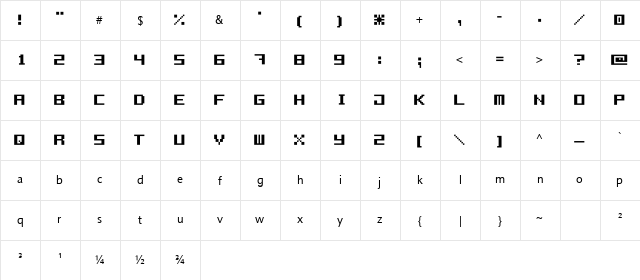
Design Context for high77 Typeface
high77 is a composed and adaptable typeface that performs quietly and consistently across a wide range of design contexts.